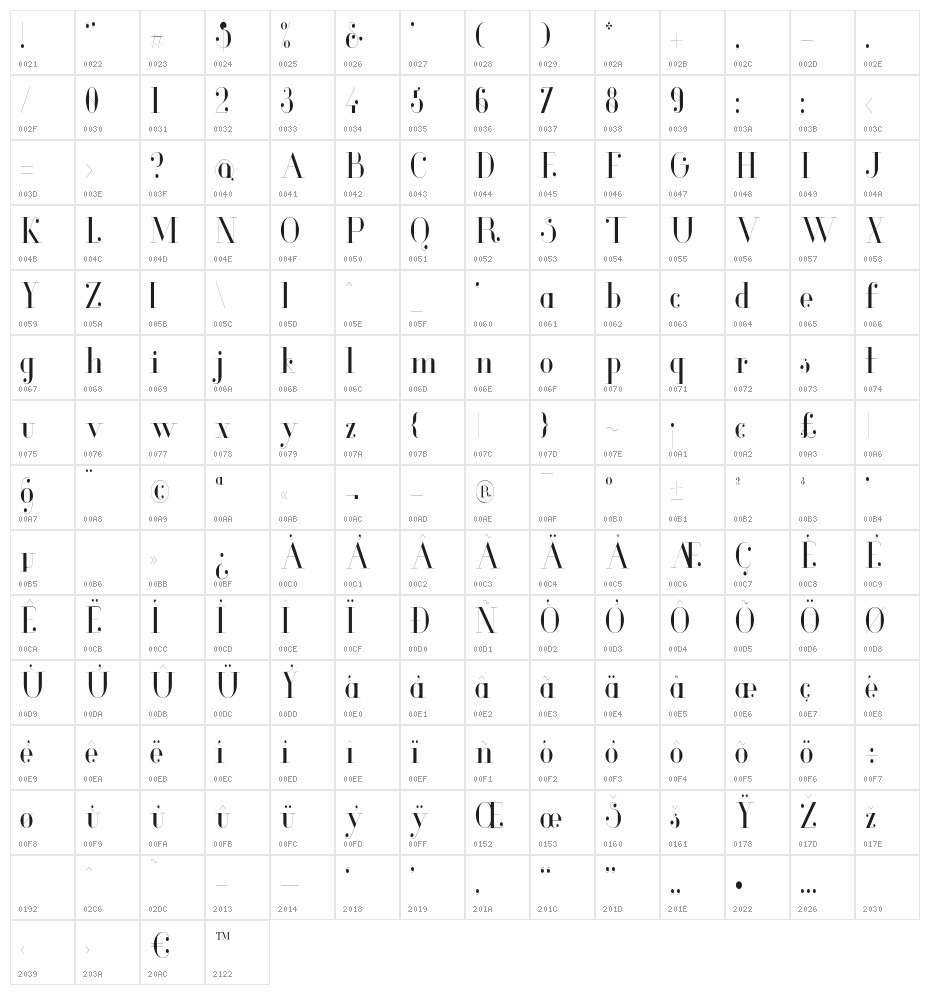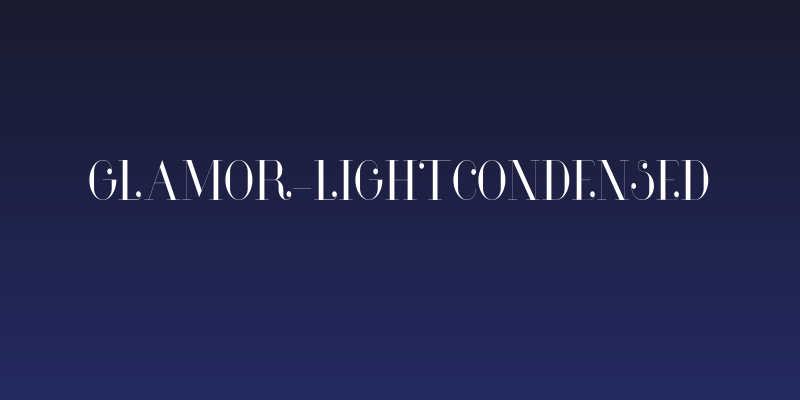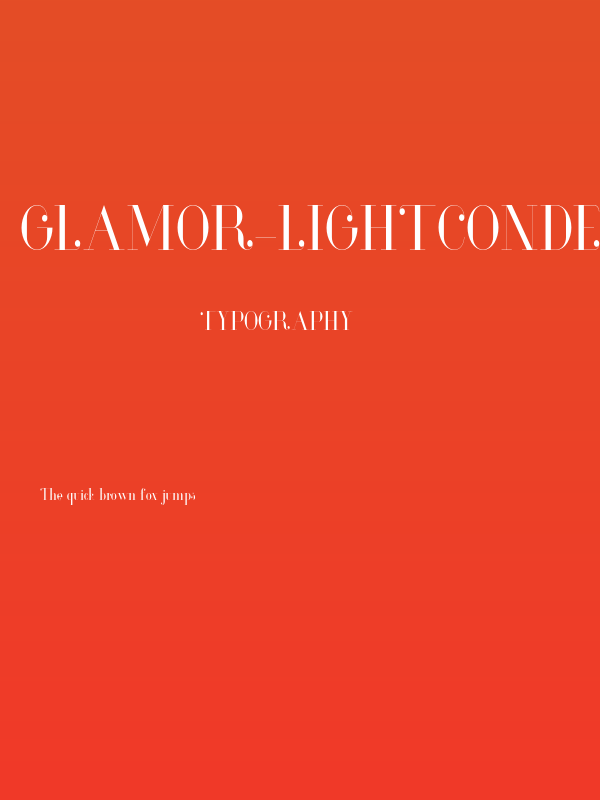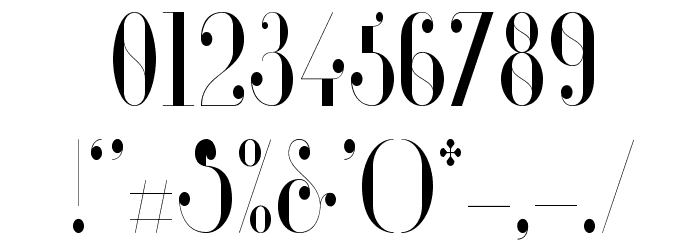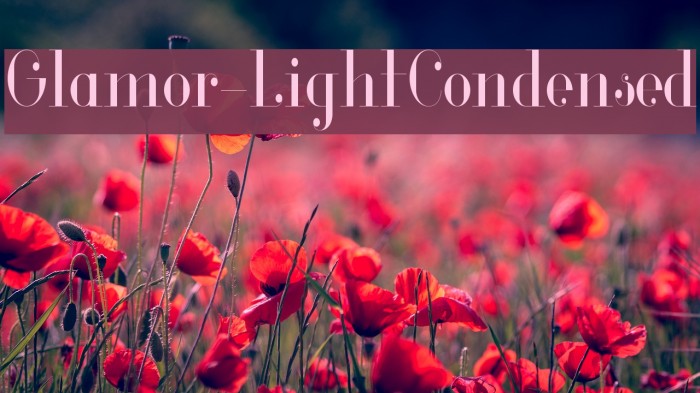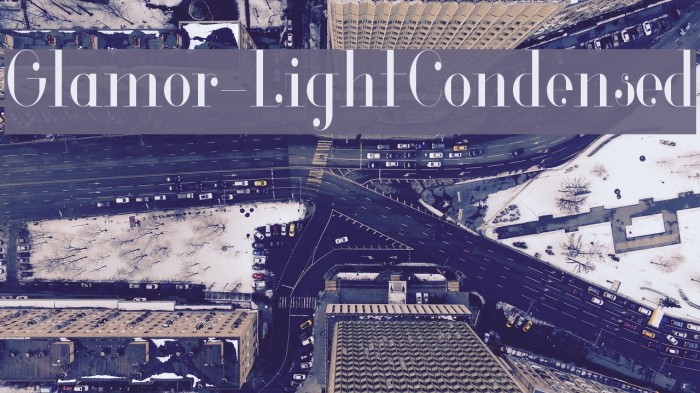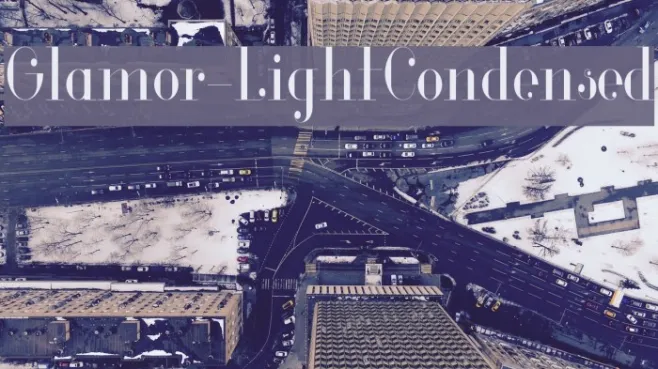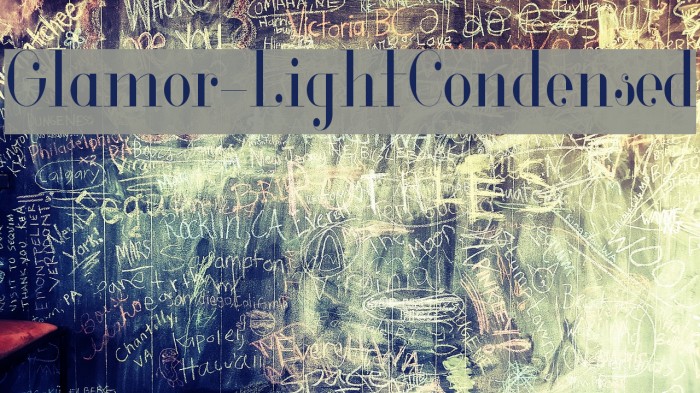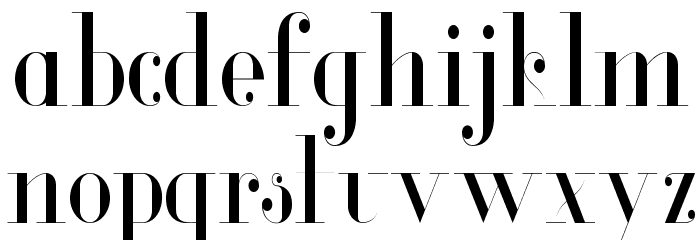
Glamor-LightCondensed Font
Glamor-LightCondensed Description
This font exhibits a refined and elegant style, characterized by its thin, elongated letterforms and high contrast between thick and thin strokes. The design features distinctively sharp serifs and a modern aesthetic, making it suitable for sophisticated and stylish applications. The uppercase letters are particularly striking, with their tall, narrow shapes and delicate curves. The lowercase letters maintain a consistent elegance, complementing the uppercase with their own unique flair. Numbers and special characters are designed to match the overall aesthetic, ensuring a cohesive look across all text elements.
| Proposed Projects | Ideal for luxury branding, fashion magazines, wedding invitations, and high-end packaging. |